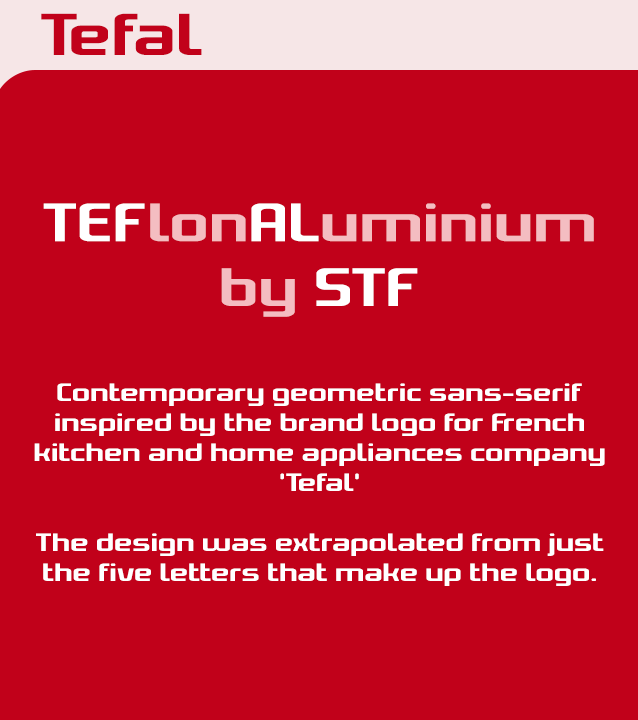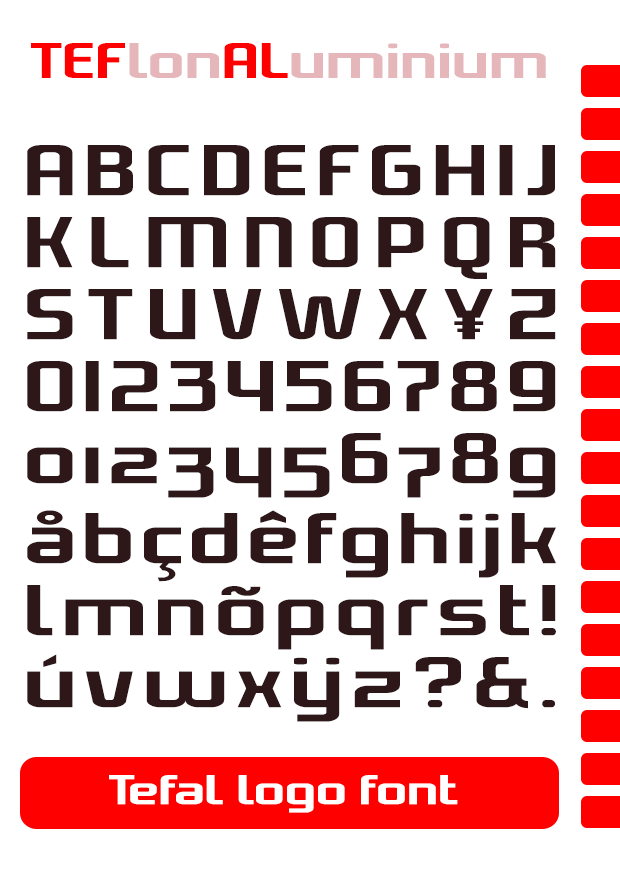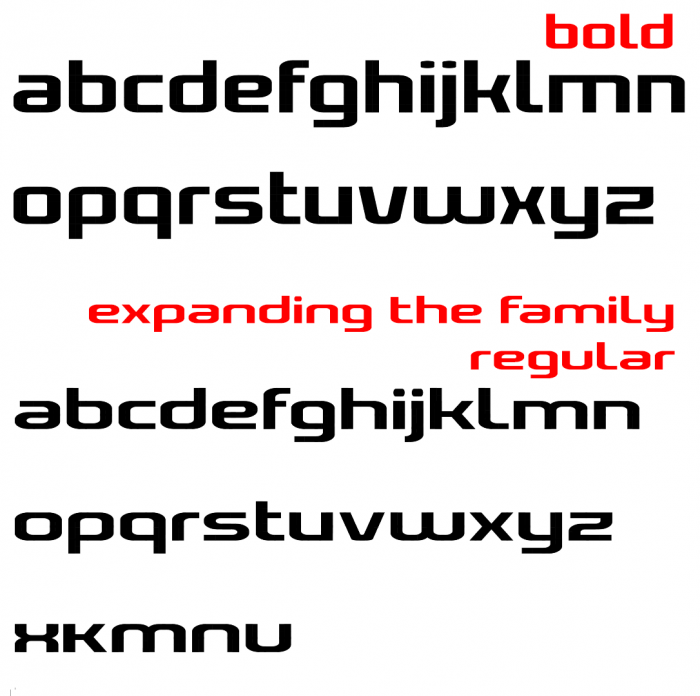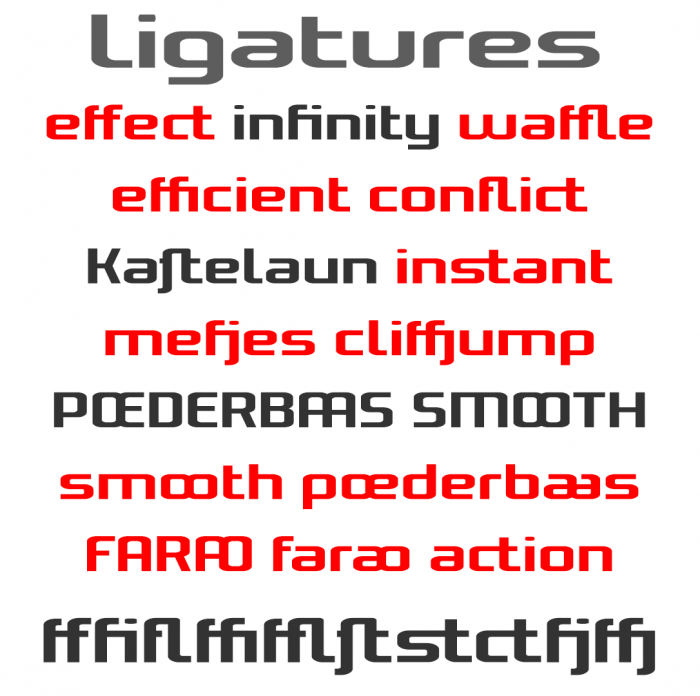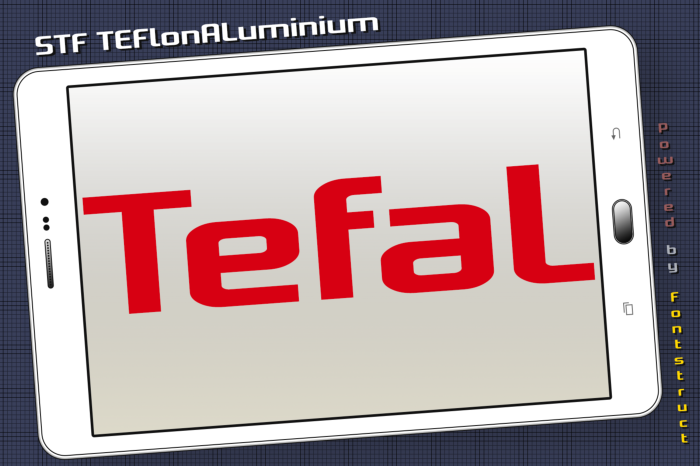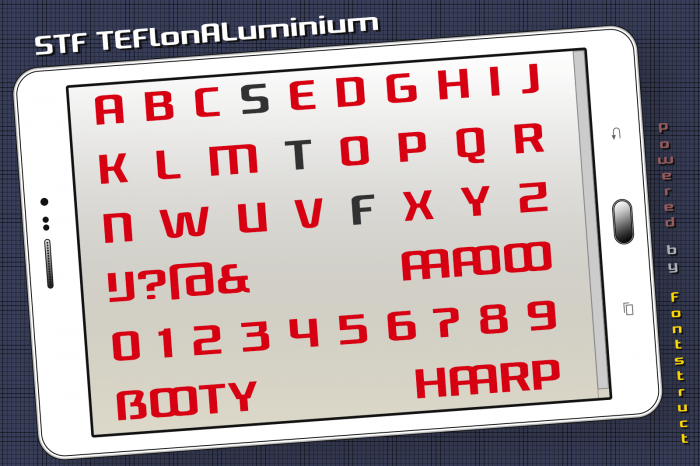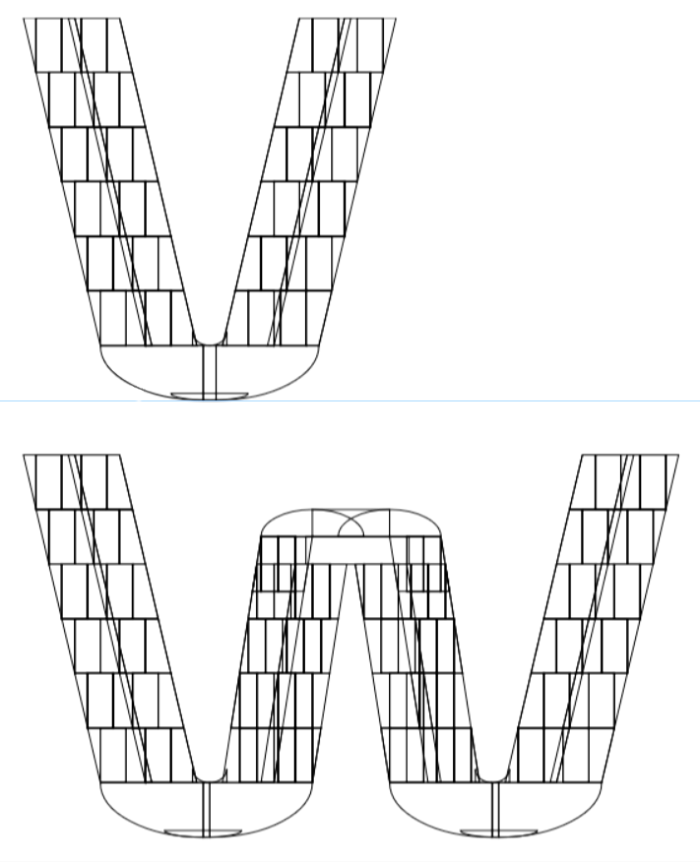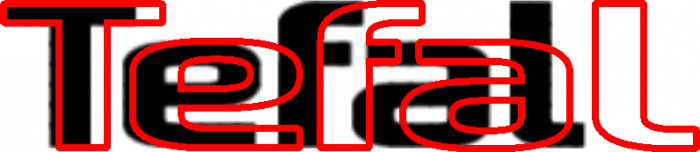
• TEFlonALuminium — A contemporary geometric sans-serif
Inspired by the brand logo for French kitchen and home appliances company 'Tefal'.
The font is an extrapolation from the five letters that make up the original logo. I have made some small changes to certain characters to make them more suitable for a full font and body copy text format.
• Refined many glyphs
• Started to expand the alphabet letters to a different style proportion to experiment with additional style variations
• Added more symbols & punctuation marks
• Created ligatures
• Lining Figures (default) & Old Style figures
I'm very surprised with how well the body copy rendering turns out for the letter concept. Especially when considering the fact that the logo was never intended to become a full (A-Z) alphabet set.